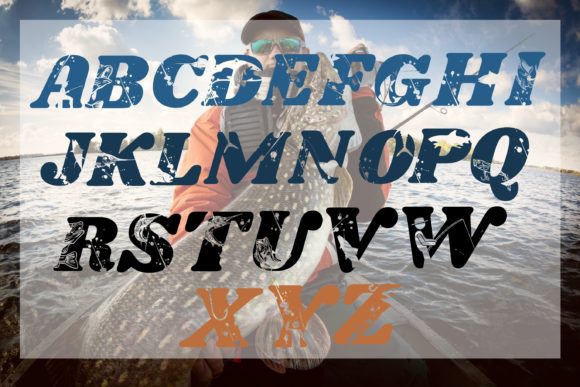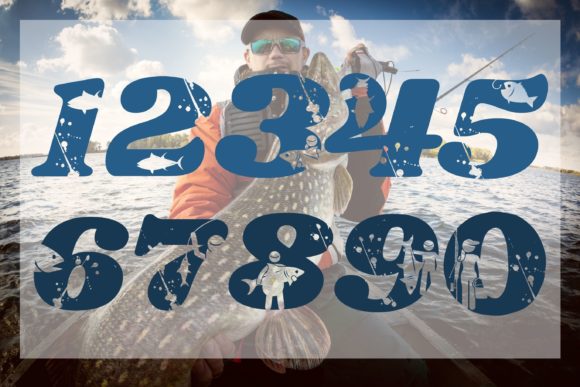
The Big Game Font: A Cool and Versatile Decorative Font for Your Creative Projects
Have you ever been in the middle of a design project, and suddenly, you’re stuck on finding the perfect font? I recall a recent experience where I was working on a branding project for a client, and I just couldn’t find a font that captured the playful yet sophisticated vibe they were looking for. That’s when I stumbled upon the Big Game font, and it completely transformed my design. In this article, we’ll dive into the world of Big Game, exploring its features, uses, and some helpful tips on how to make the most of this amazing decorative font.
A Personal Encounter with Big Game
As a designer, I’m always on the lookout for fonts that can elevate my projects and make them stand out. When I first laid eyes on Big Game, I was immediately drawn to its unique and cool design. It’s a decorative font that’s perfect for a wide range of projects, from blog posts and logos to branding, ads, invitations, greeting cards, planners, photo albums, and decorations.
An Honest Review of Big Game
• ✨ Unique and eye-catching design: Big Game has a distinctive style that will make your projects stand out from the crowd.
• ✅ Highly versatile: This font can be used for a wide range of projects, from digital designs to print materials.
• 🎉 Fun and playful vibe: Big Game has a lighthearted and carefree personality that’s perfect for projects that require a bit of whimsy.
While Big Game is an amazing font, there are a few things to keep in mind:
• 🤔 Legibility at small sizes: As with many decorative fonts, Big Game may not be the best choice for body text or small font sizes.
• ⚠️ Overuse can be overwhelming: While Big Game is a beautiful font, using it excessively can be overwhelming. Balance is key.
One of the best things about Big Game is its OpenType features and glyphs. These allow you to customize the font to suit your design needs. For example, you can use stylistic alternates to create a more playful or elegant look. To access these features, you’ll need to use a design platform that supports OpenType, such as Adobe Photoshop or Illustrator.
The Backstory of Big Game
The story behind Big Game is one of creativity and inspiration. While the actual origins of the font are unclear, it’s believed to have been designed by a team of creative enthusiasts who wanted to create a unique and versatile font for designers and crafters. Their goal was to craft a font that’s both fun and sophisticated, making it perfect for a wide range of projects.
Q: What type of projects is Big Game suitable for?
A: Big Game is perfect for a wide range of projects, including blog posts, logos, branding, ads, invitations, greeting cards, planners, photo albums, and decorations.
Q: Can I use Big Game with other fonts?
A: Absolutely! Big Game can be paired with other fonts to create a unique and visually appealing design. Experiment with different font combinations to find the perfect look.